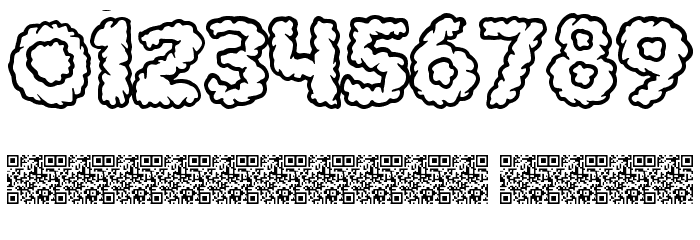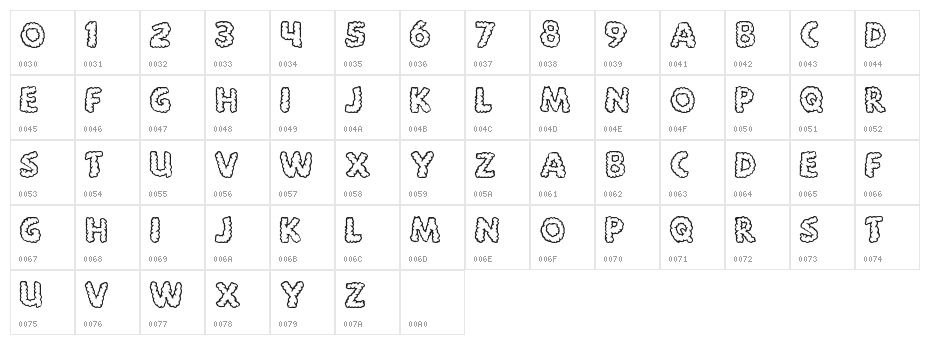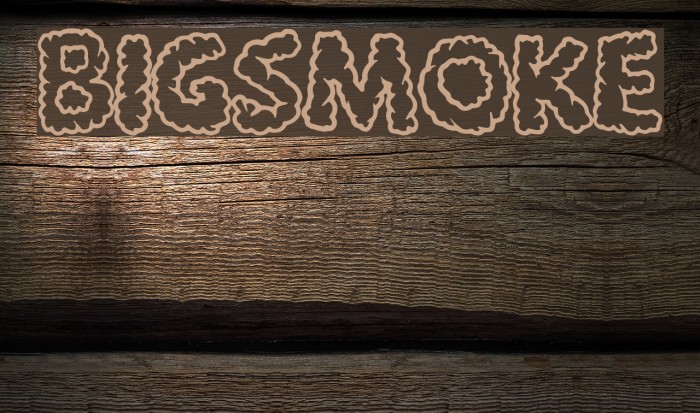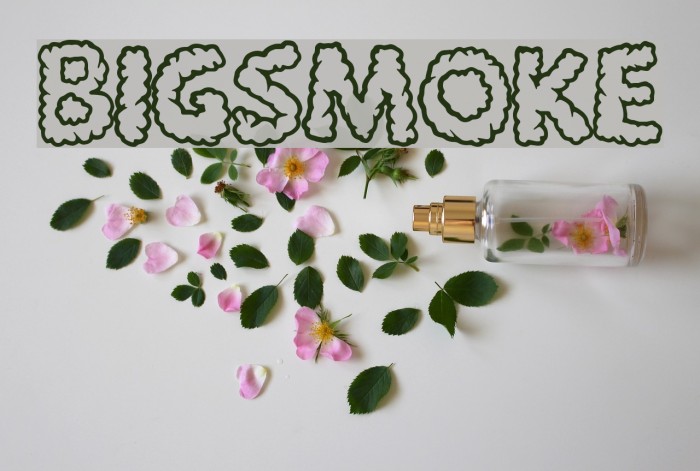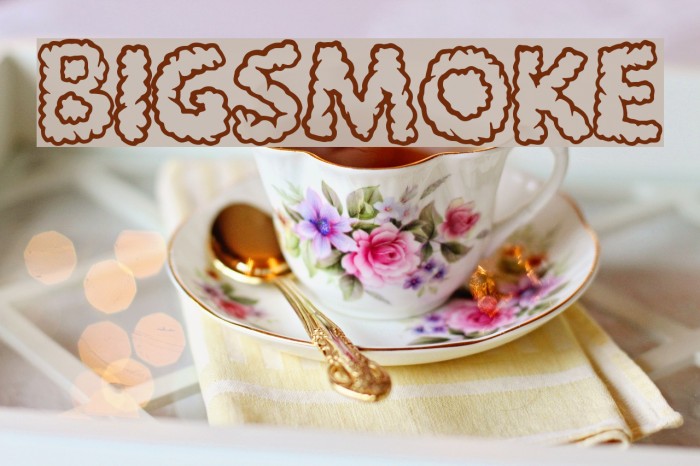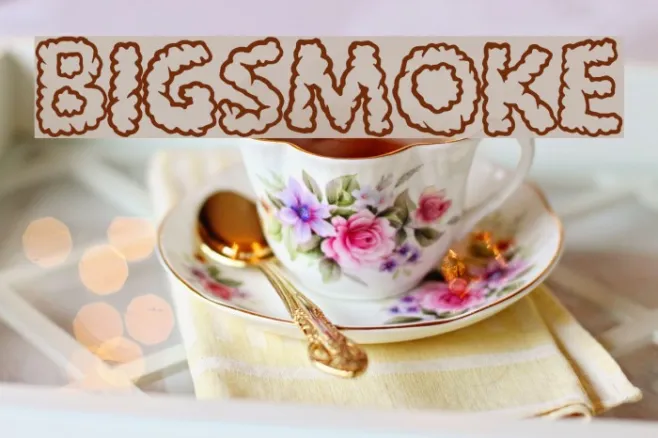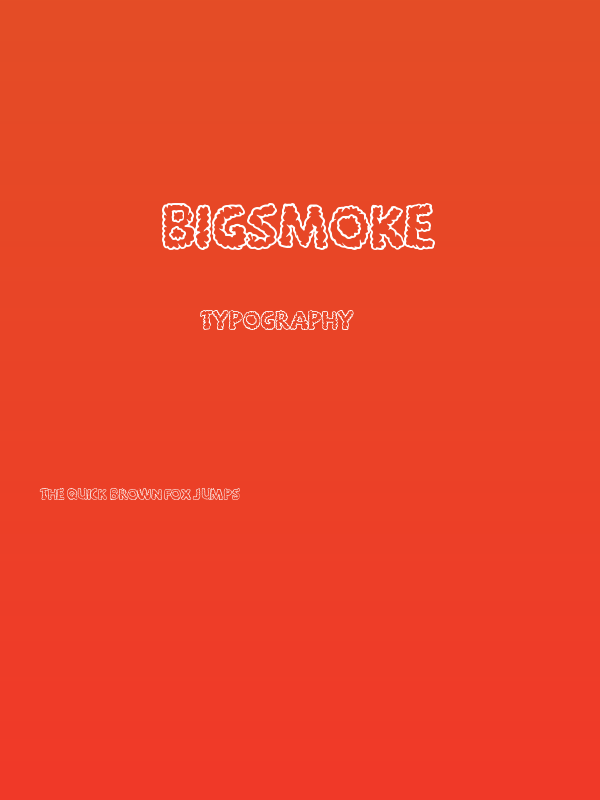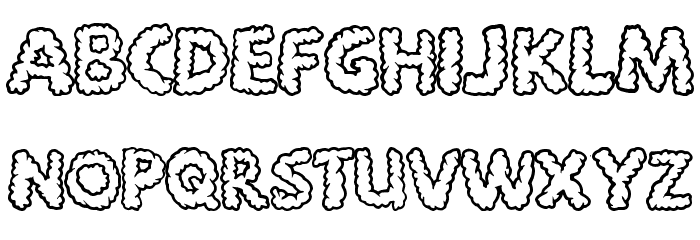
BigSmoke Font
BigSmoke Description
This playful and whimsical font features characters that appear as if they are made from fluffy clouds or smoke. Each letter and number is outlined with a bold, black stroke, giving it a cartoonish and fun appearance. The font's unique style is characterized by its puffy, rounded edges and irregular shapes, creating a sense of movement and lightness. It captures a carefree and imaginative spirit, making it ideal for projects that require a touch of humor or creativity. The font maintains consistency across uppercase and lowercase letters, as well as numbers, ensuring a cohesive look.